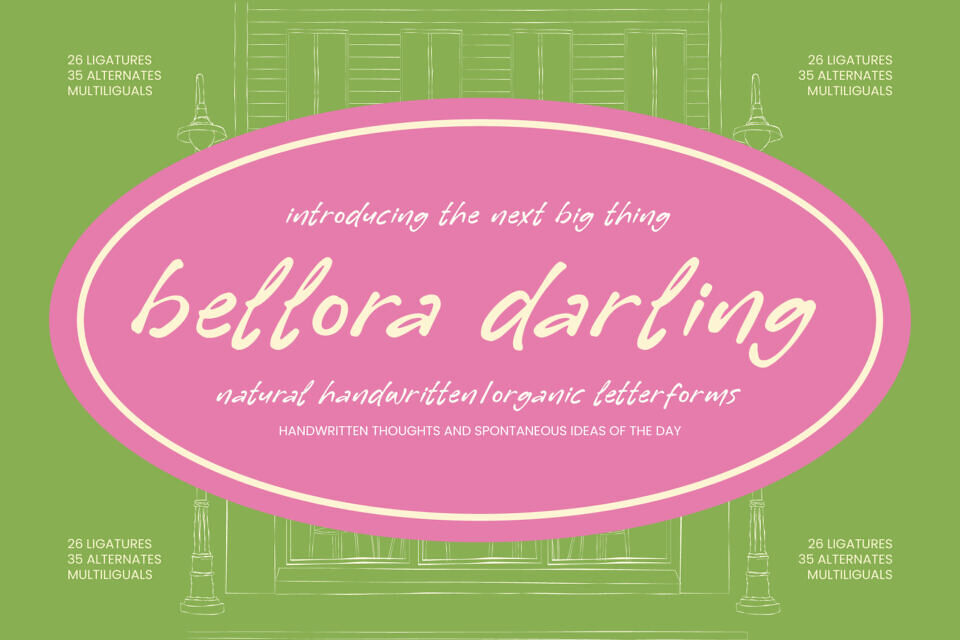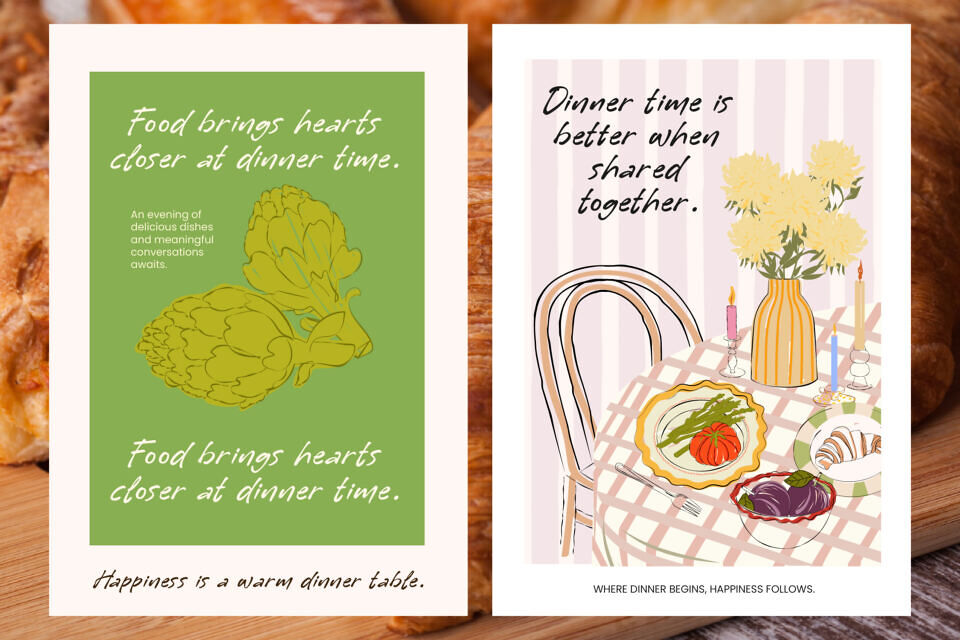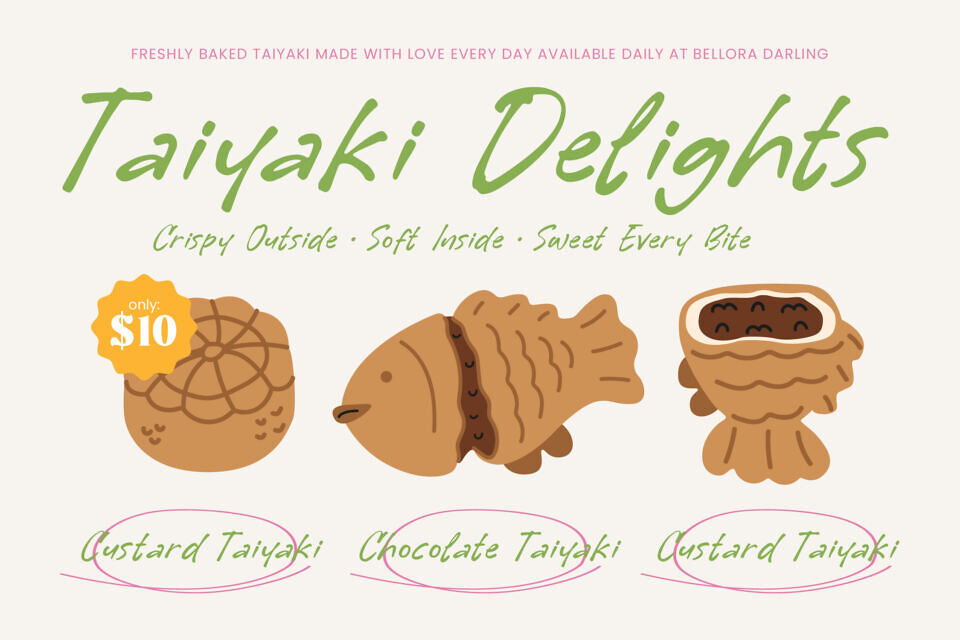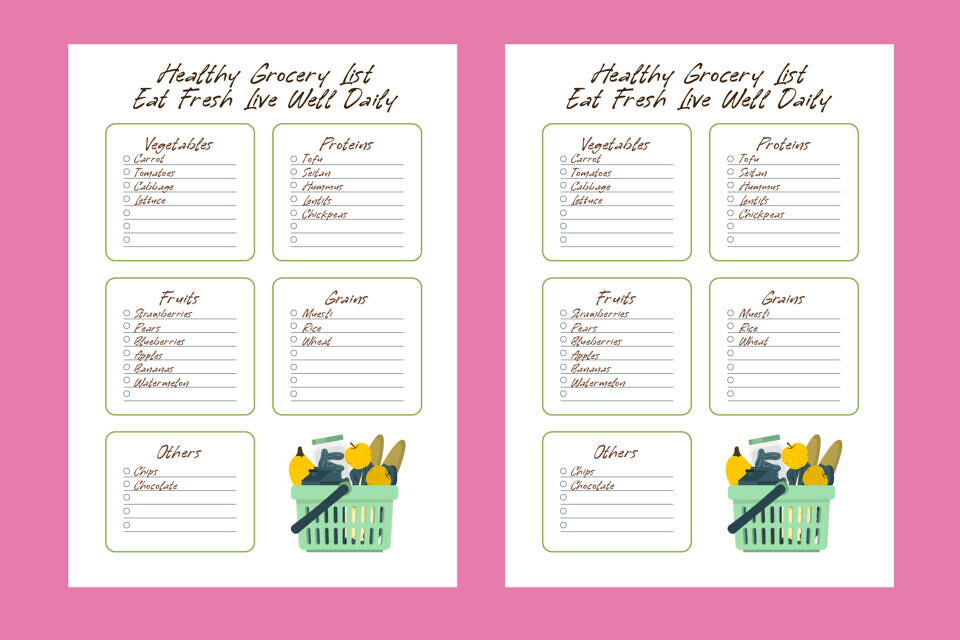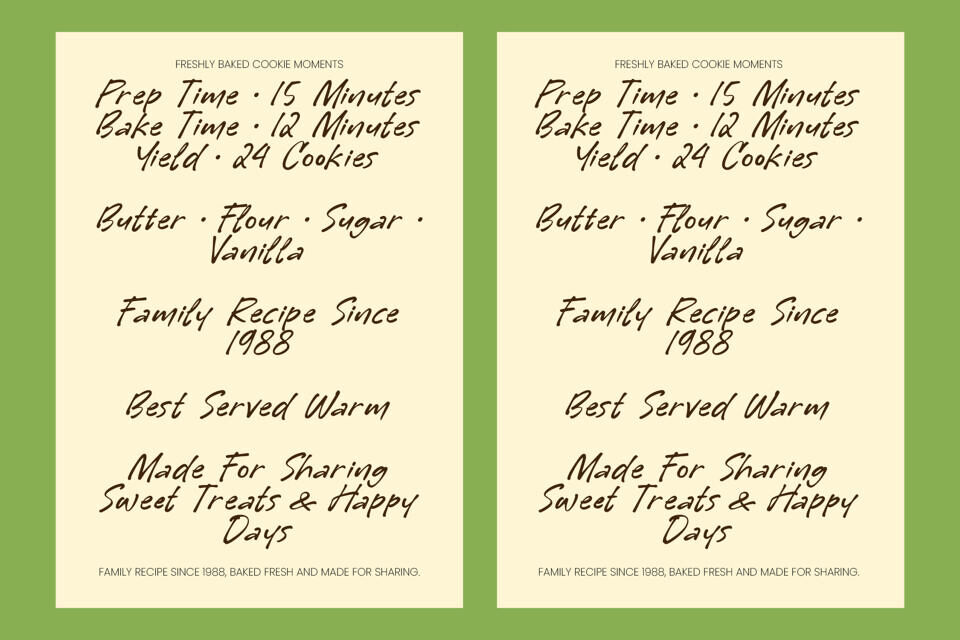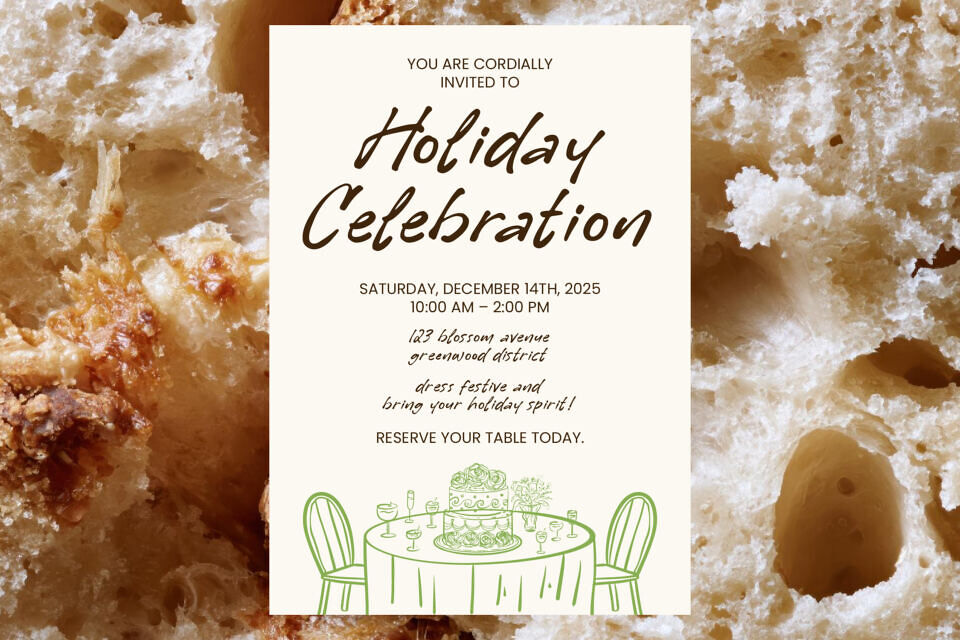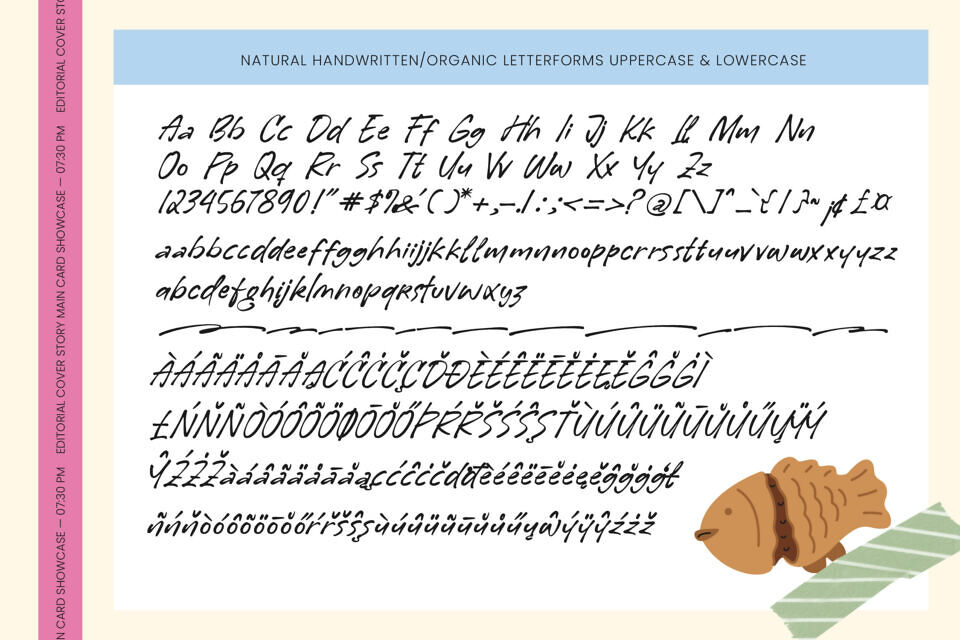
Bellora Darling is a handwritten font that brings warmth and authenticity to digital designs. It offers a relaxed, spontaneous feel and is perfect for both personal and professional projects.
With 26 ligatures and 35 stylistic alternates, designers can create unique typography. The font also supports multiple languages, making it versatile for global projects and ensuring consistent branding across different regions and languages.